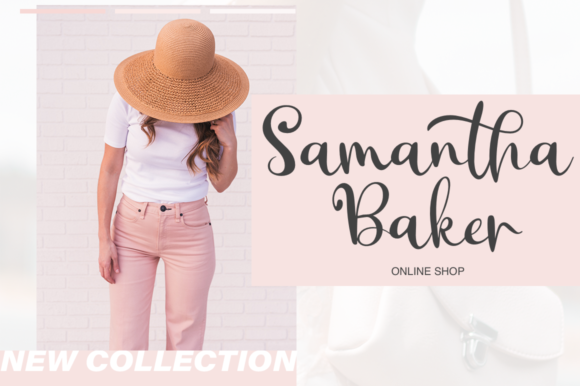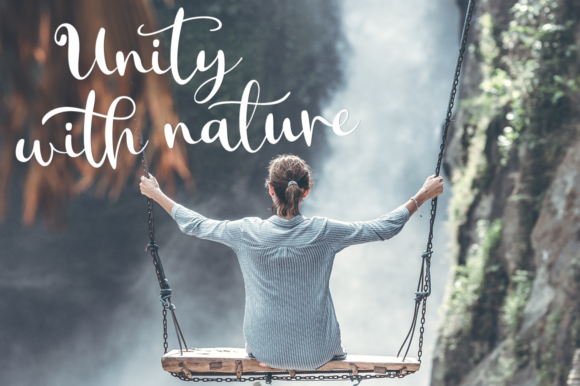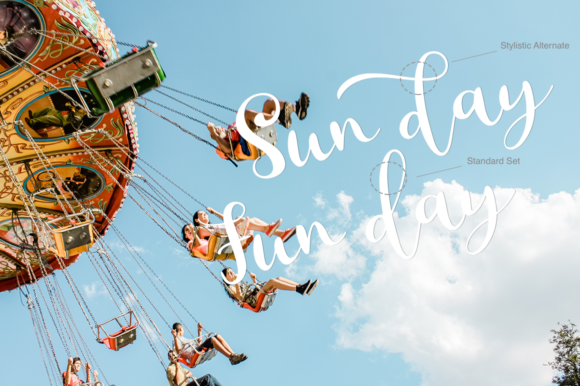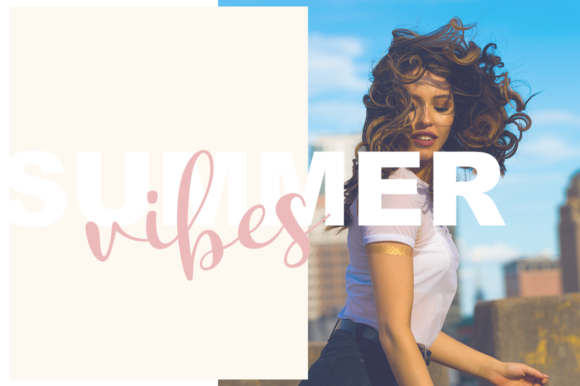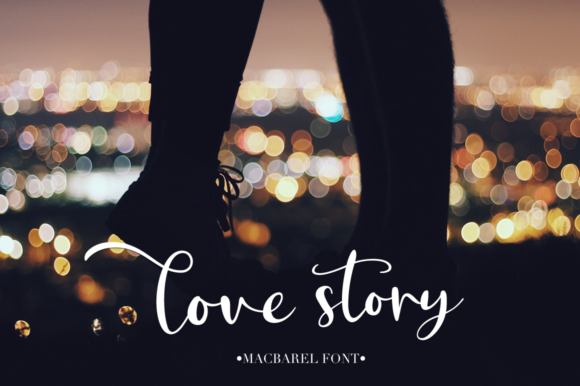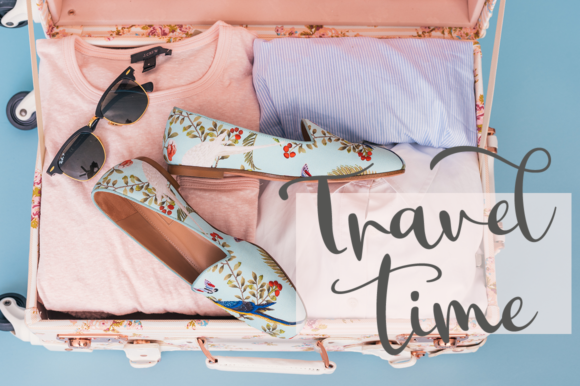
Introduction to Macbarel Font
Macbarel is a elegant handwritten typeface.
It’s ideal for branding and decorating your project, and is perfect for wedding invitations or blogs .
Key Features of Macbarel Font
Why Choose Macbarel Font?
Macbarel Font offers exceptional quality and versatility, making it a valuable addition to your design toolkit. Whether you’re creating for personal projects or commercial use, Macbarel Font delivers professional results.